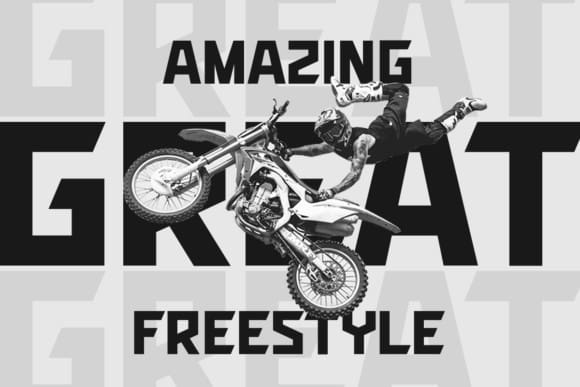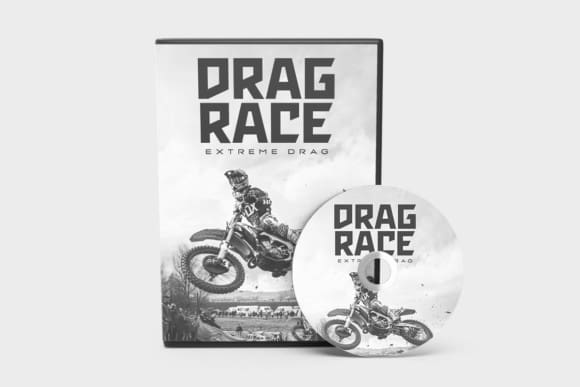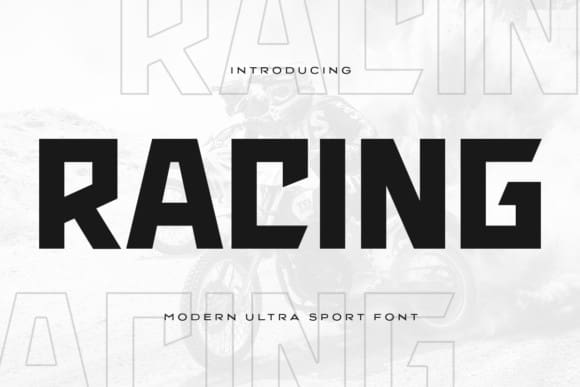
Racing Sports Font
Racing Sports Font, is a modern ultra sports font that has been created specially for branding, titles and more stand out typography for sport and action. It’s so perfect to add your projects and headline overview for sports, technology, actions, fighting themes and so much more.